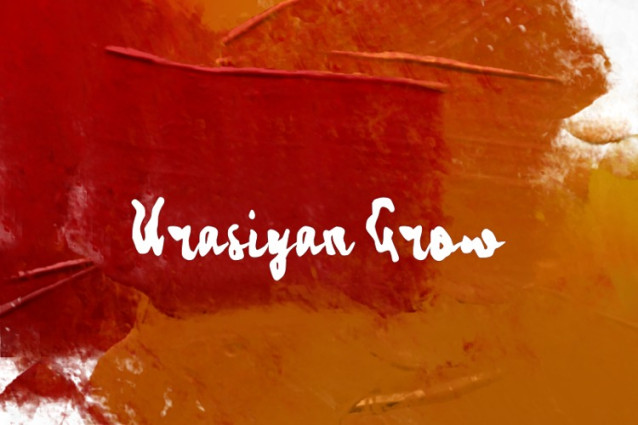
Urasiyan Grow Font
Urasiyan Grow Font, perfectly fit for branding, logo, wedding things, greeting cards, fashion, lookbook, marketing promotion, anytime you want to look fancy elegant but still casual.